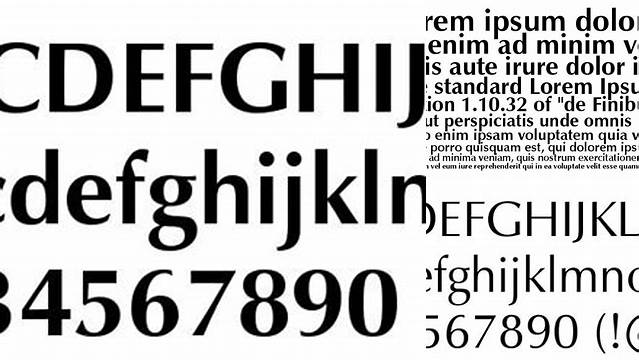
Are you guys on the hunt for a classic, elegant, and highly readable font for your next design project? Look no further! The Zapf Humanist 601 font family is a timeless typeface that has been a favorite among designers for decades. In this comprehensive guide, we'll dive deep into the history, characteristics, and uses of this beautiful font, and most importantly, show you how to snag a free download.
What is the Zapf Humanist 601 Font Family?
Zapf Humanist 601, often considered a cornerstone in the world of typography, is a humanist sans-serif typeface designed by the legendary German type designer, Hermann Zapf. Originally released in 1979 by the D. Stempel AG foundry, this font embodies the principles of humanist design, drawing inspiration from classic calligraphy and handwriting. This influence gives it a warm, organic feel that sets it apart from more geometric sans-serif fonts. The Zapf Humanist 601 font family is characterized by its excellent readability, open forms, and subtle variations in stroke weight, making it a versatile choice for a wide range of applications. Its elegant yet approachable aesthetic has made it a go-to font for branding, editorial design, and even web design. One of the defining features of Zapf Humanist 601 is its carefully crafted letterforms, which exhibit a noticeable calligraphic influence. This is evident in the slight variations in stroke thickness and the gentle curves that mimic the natural flow of handwriting. Unlike some sans-serif fonts that can appear cold and mechanical, Zapf Humanist 601 possesses a warmth and personality that make it highly engaging for the reader. The font's open counters (the enclosed spaces within letters) and generous spacing contribute to its exceptional legibility, even at small sizes. This makes it an excellent choice for body text, where readability is paramount. The Zapf Humanist 601 font family typically includes a range of weights, from light to bold, as well as italic styles. This variety allows designers to create visual hierarchy and add emphasis within their designs. The italic styles, in particular, retain the calligraphic quality of the upright fonts, further enhancing the font's unique character. Compared to other humanist sans-serif fonts, Zapf Humanist 601 stands out for its refined elegance and versatility. While fonts like Gill Sans and Frutiger are also popular choices in this category, Zapf Humanist 601 offers a more sophisticated and contemporary feel. Its subtle details and balanced proportions make it a timeless classic that continues to be relevant in modern design.
History and Inspiration Behind Zapf Humanist 601
To truly appreciate the Zapf Humanist 601 font family, it's essential to understand its history and the inspiration behind its creation. Hermann Zapf, the mastermind behind this typeface, was a towering figure in the world of typography. His career spanned decades, during which he designed some of the most iconic fonts of the 20th century, including Palatino and Optima. Zapf's deep understanding of calligraphy and his passion for letterforms are evident in all his work, and Zapf Humanist 601 is no exception. The development of Zapf Humanist 601 in the late 1970s coincided with a period of renewed interest in humanist typefaces. Designers were looking for alternatives to the more rigid and geometric sans-serif fonts that had dominated the mid-20th century. Zapf's design philosophy, rooted in the principles of calligraphy and the beauty of the human hand, perfectly aligned with this trend. The font's design is heavily influenced by the proportions and forms of classical Roman capitals and Renaissance-era humanist minuscule letterforms. Zapf meticulously studied historical manuscripts and calligraphy to inform his design, ensuring that Zapf Humanist 601 retained a sense of tradition and elegance. However, Zapf was not simply replicating historical forms. He sought to create a contemporary typeface that would be both beautiful and functional in modern applications. This involved carefully balancing the calligraphic elements with the clarity and legibility required for contemporary typography. One of the key inspirations for Zapf Humanist 601 was the work of earlier humanist type designers, such as Nicolas Jenson and Aldus Manutius, who had pioneered the development of humanist typefaces in the 15th and 16th centuries. Zapf admired their emphasis on readability, balance, and the beauty of letterforms. He aimed to capture the same qualities in his own typeface, while also incorporating his unique artistic vision. The name "Humanist" itself reflects the font's connection to the humanist tradition, which emphasizes the importance of human values and experiences. In typography, humanist typefaces are characterized by their warm, organic forms and their resemblance to handwriting. Zapf Humanist 601 perfectly embodies these qualities, making it a font that feels both familiar and sophisticated. Zapf's meticulous attention to detail is evident in every aspect of the font's design, from the subtle curves and variations in stroke weight to the carefully crafted spacing and kerning. He understood that even the smallest details can have a significant impact on the overall look and feel of a typeface.
Key Characteristics of the Font
The Zapf Humanist 601 font family possesses a unique set of characteristics that contribute to its elegance, readability, and versatility. Understanding these features is crucial for appreciating the font's design and effectively using it in your projects. First and foremost, its humanist nature sets it apart. The calligraphic influence is apparent in the gentle curves and varying stroke weights, giving it a warm and organic feel that's distinct from geometric sans-serifs. This connection to handwriting makes it exceptionally readable, especially in extended texts, as the forms are familiar and flow naturally. The open counters, which are the enclosed spaces within letters like 'o' and 'e', are another key feature. These open counters, combined with generous spacing, enhance legibility, particularly at smaller sizes. This makes it a practical choice for body text in books, magazines, and websites. The x-height, referring to the height of lowercase letters relative to the uppercase letters, is moderately tall in Zapf Humanist 601. This contributes to its perceived clarity and balance, making the lowercase letters easily distinguishable. The ascenders and descenders, the parts of letters that extend above and below the x-height (like the 'h' and 'p'), are also carefully proportioned, further enhancing its visual appeal. The font family typically includes a range of weights, from light to bold, giving designers flexibility in creating visual hierarchy and emphasis. The italic styles are particularly noteworthy, retaining the calligraphic quality of the upright fonts, and adding a touch of elegance and flair. This allows for graceful use of italics within text without disrupting the overall harmony. Furthermore, its proportions are carefully balanced, ensuring that the letterforms are visually pleasing and harmonious. The subtle variations in stroke weight and the gentle curves create a sense of rhythm and flow, making the font enjoyable to read. Compared to other humanist sans-serif fonts, Zapf Humanist 601 often presents a more refined and contemporary feel. While fonts like Gill Sans have a classic British feel and Frutiger offers a more geometric approach, Zapf Humanist 601 strikes a balance between tradition and modernity. Its versatility extends across a wide range of applications. It performs admirably in branding materials, lending an air of sophistication and trustworthiness. It's equally at home in editorial design, where its readability and elegance make it a perfect choice for books, magazines, and newspapers. The font's clean and legible design also makes it a solid option for web design, ensuring a pleasant reading experience for online users.
Where to Use Zapf Humanist 601
The versatility of the Zapf Humanist 601 font family makes it a fantastic choice for a wide range of design projects. Knowing where this font shines will help you make informed decisions and elevate your work. One of the most common applications is in branding. The font's elegance and readability lend a sense of sophistication and trustworthiness to brand identities. It works exceptionally well for logos, taglines, and marketing materials, particularly for businesses that want to project a refined and professional image. Whether it's a law firm, a luxury brand, or a high-end restaurant, Zapf Humanist 601 can help convey a sense of quality and attention to detail. In editorial design, this font truly excels. Its exceptional legibility makes it a perfect choice for body text in books, magazines, and newspapers. The open counters and balanced proportions ensure a comfortable reading experience, even in long passages of text. The availability of different weights and italic styles allows for creating clear visual hierarchy and adding emphasis where needed. Imagine a beautifully designed novel, a sleek magazine layout, or a sophisticated newspaper article – Zapf Humanist 601 can bring a touch of class to these formats. For web design, this font provides a clean and modern aesthetic. Its readability on screen is excellent, making it suitable for website body text, headings, and navigation menus. The font's versatility allows it to adapt to various website styles, from corporate websites to personal blogs. Using Zapf Humanist 601 can contribute to a user-friendly and visually appealing online experience. Beyond these core applications, this font can also be used effectively in print materials such as brochures, flyers, and posters. Its legibility and elegance make it a strong choice for conveying information in a clear and visually appealing way. It's also a great option for signage, ensuring that information is easily readable from a distance. If you're designing an invitation or a greeting card, its graceful letterforms can add a touch of sophistication. Its adaptability extends to mobile applications as well. The font's clarity on small screens makes it an excellent choice for app interfaces and user experience design. Whether you're creating a productivity app or a social media platform, Zapf Humanist 601 can help ensure that the text is legible and visually appealing.
The Zapf Humanist 601 font family is a true gem in the world of typography. Its elegant, readable, and versatile design has made it a favorite among designers for decades. While finding a free download of the full font family may be challenging, understanding its history, characteristics, and applications will help you appreciate its beauty and make informed decisions about its use. And remember, there are plenty of excellent alternatives available, both free and paid, that can capture a similar aesthetic. So, go forth and explore the world of typography – you might just discover your next favorite font!